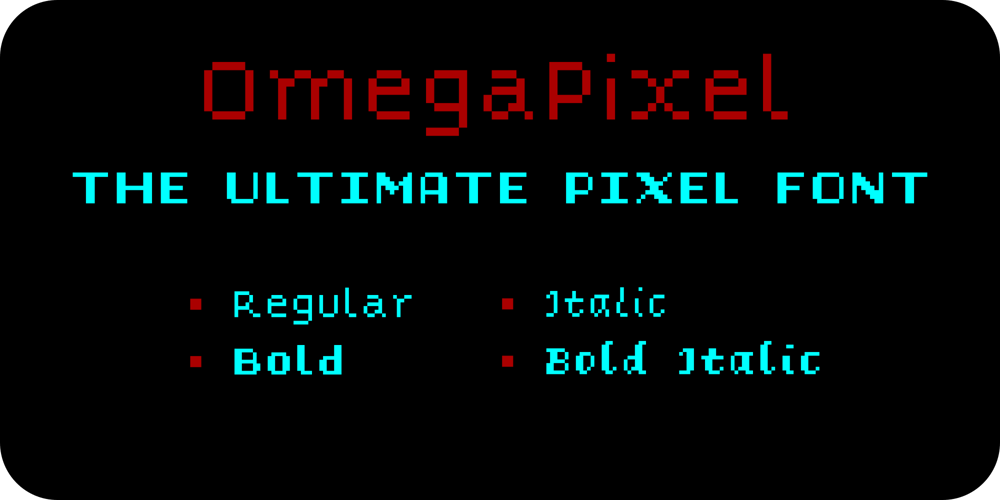
Omega Pixel Font Family was designed by João Henrique Lopes and published by João Henrique Lopes. Omega Pixel contains 4 styles and family package options. OmegaPixel Font DescriptionI created this font for the game Hyper Ninja Blast (but made it useful to all kinds of games!). While creating the game, I searched for pixel fonts, but could not find a suitable one. The fonts were generally ugly and lacking the basic variations (italic and bold). So I decided to create my own pixel font.Just as pixel art can be better than a high-resolution painting, so pixel fonts don’t need to be always worse than traditional fonts. In OmegaPixel I tried to achieve elegance, readability and flexibility within the limitations of a 6 pixel x-height. With 4 versions (regular, italic, bold and bold italic), and a neutral feel, OmegaPixel can be used in any genre of games. Considering the general lack of money among indie game devs, I’m giving the regular version for free!For inspiration, I often remebered Minion’s lowercase ‘a’, Galliard italic lowercase ‘g’, and the calligraphy of Chinese emperor Huizong.